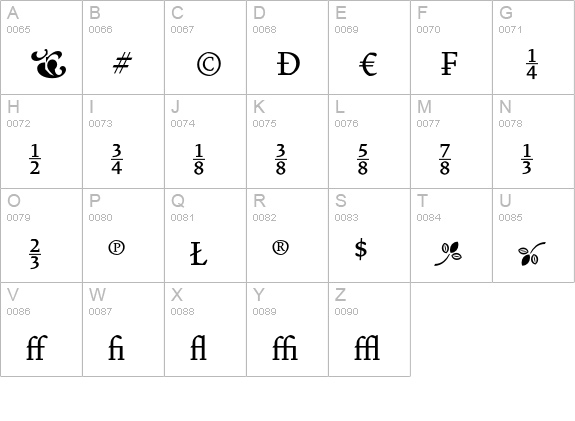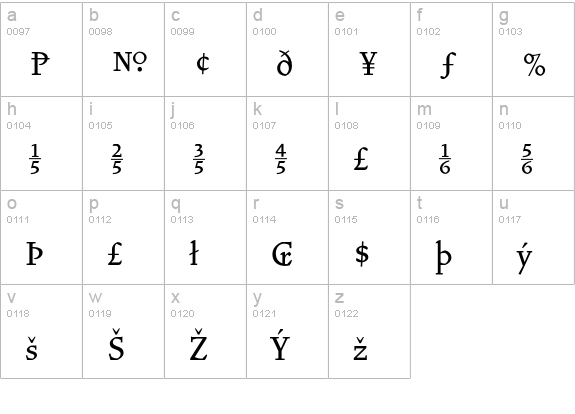
VendettaMediumFractionsTabFigs Font Details
VendettaMediumFractionsTabFigs font is a stunning and versatile typeface that exudes elegance and sophistication. With its sleek lines and modern appeal, this font is perfect for a wide range of design projects, from branding and advertising to editorial layouts and web design. What sets VendettaMediumFractionsTabFigs font apart is its unique ability to seamlessly blend both traditional and contemporary elements. The sharp corners and clean curves create a sense of balance and harmony, while the distinctive fractions and tabular figures add a touch of functionality and practicality. This font is not only visually striking, but it also offers exceptional legibility and readability, making it ideal for both display and body text. Whether you're designing a logo, a brochure, or a website, VendettaMediumFractionsTabFigs font will effortlessly elevate your project and captivate your audience. And the best part? VendettaMediumFractionsTabFigs font is available for free download at FontsMarket.com. That's right, you can enjoy the beauty and versatility of this font without spending a dime. Don't miss out on the opportunity to enhance your designs with this remarkable typeface. So, if you're looking for a font that combines elegance, versatility, and practicality, look no further than VendettaMediumFractionsTabFigs font. Download it now for free at FontsMarket.com and let your creativity soar.